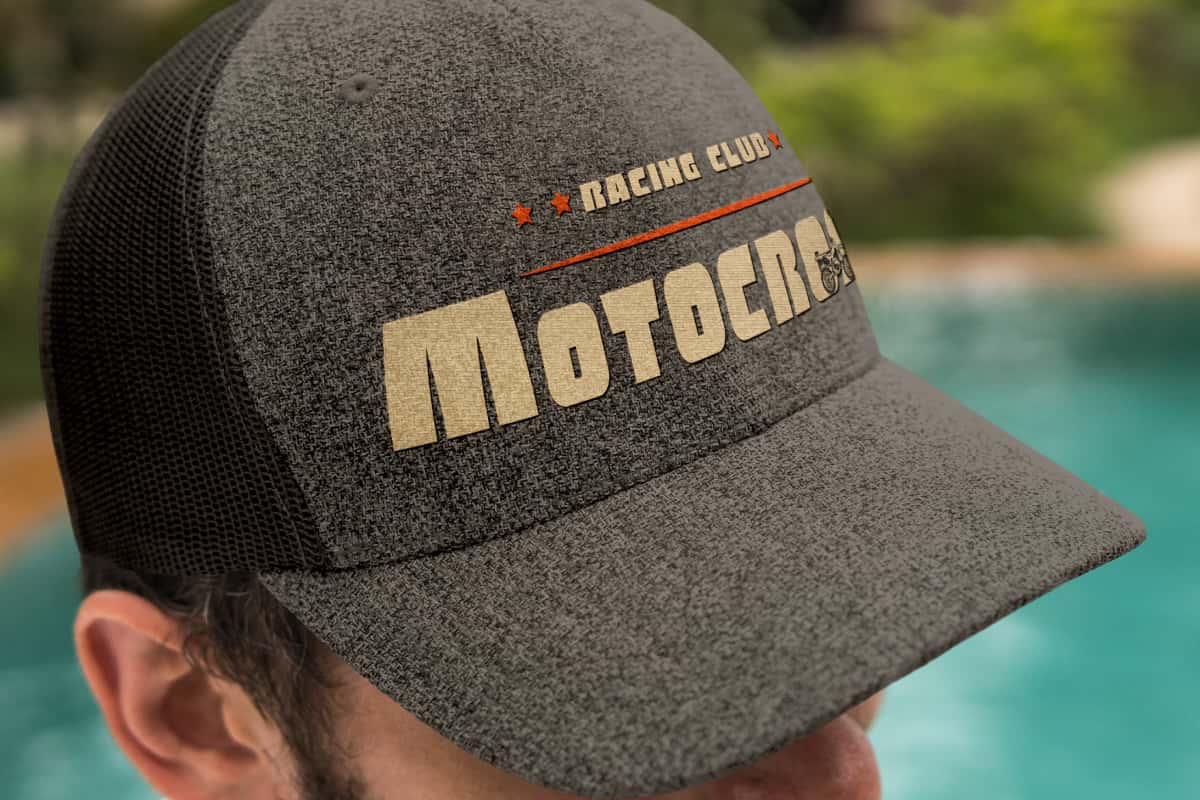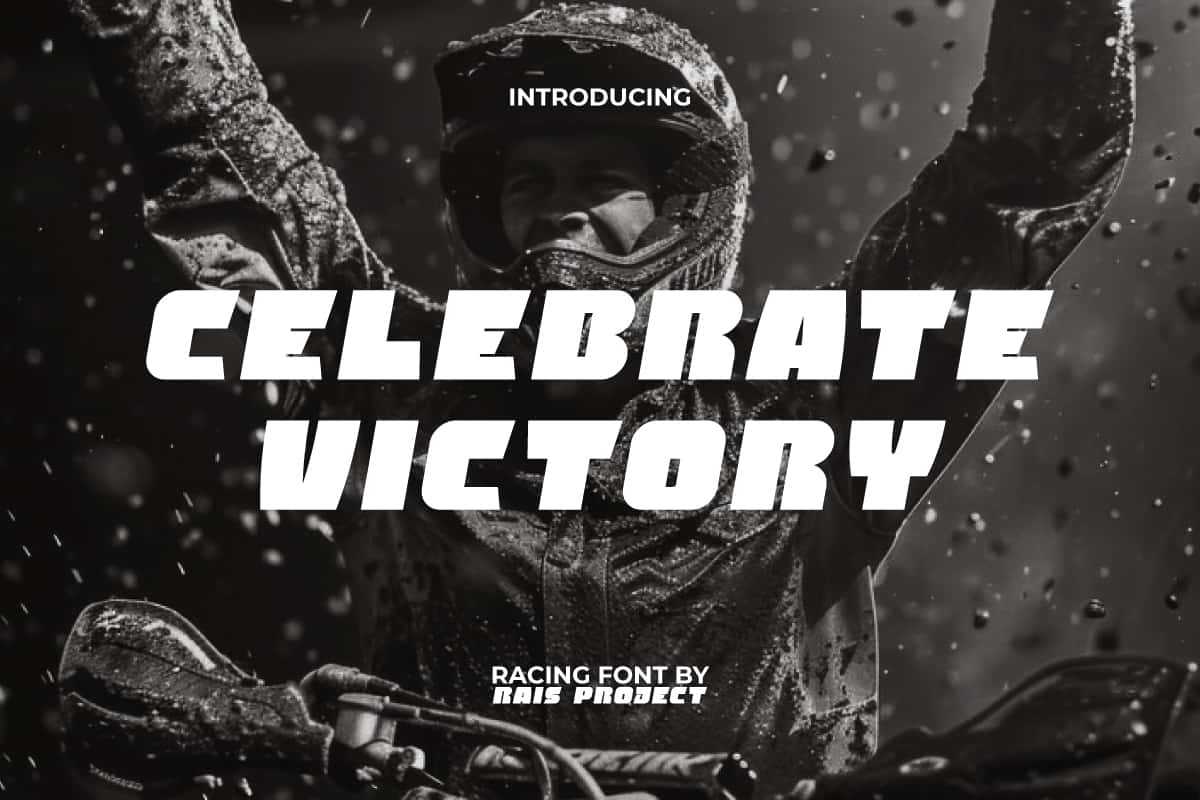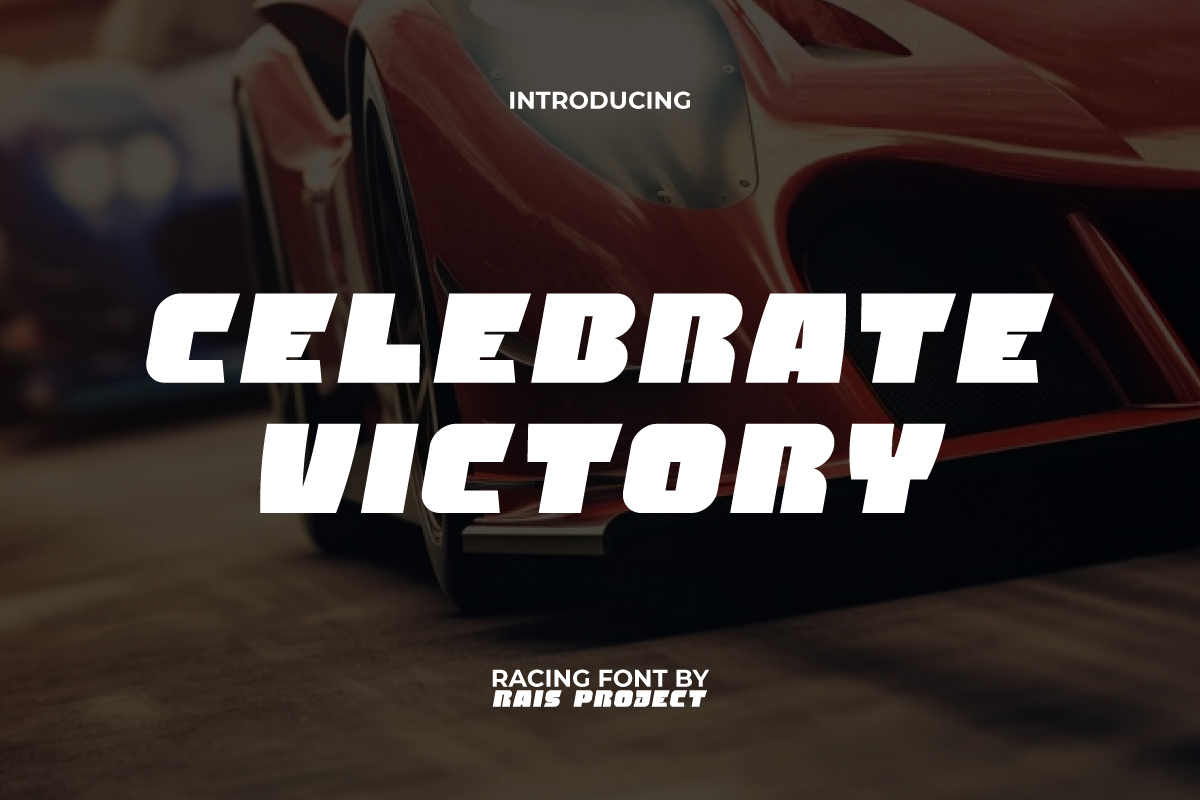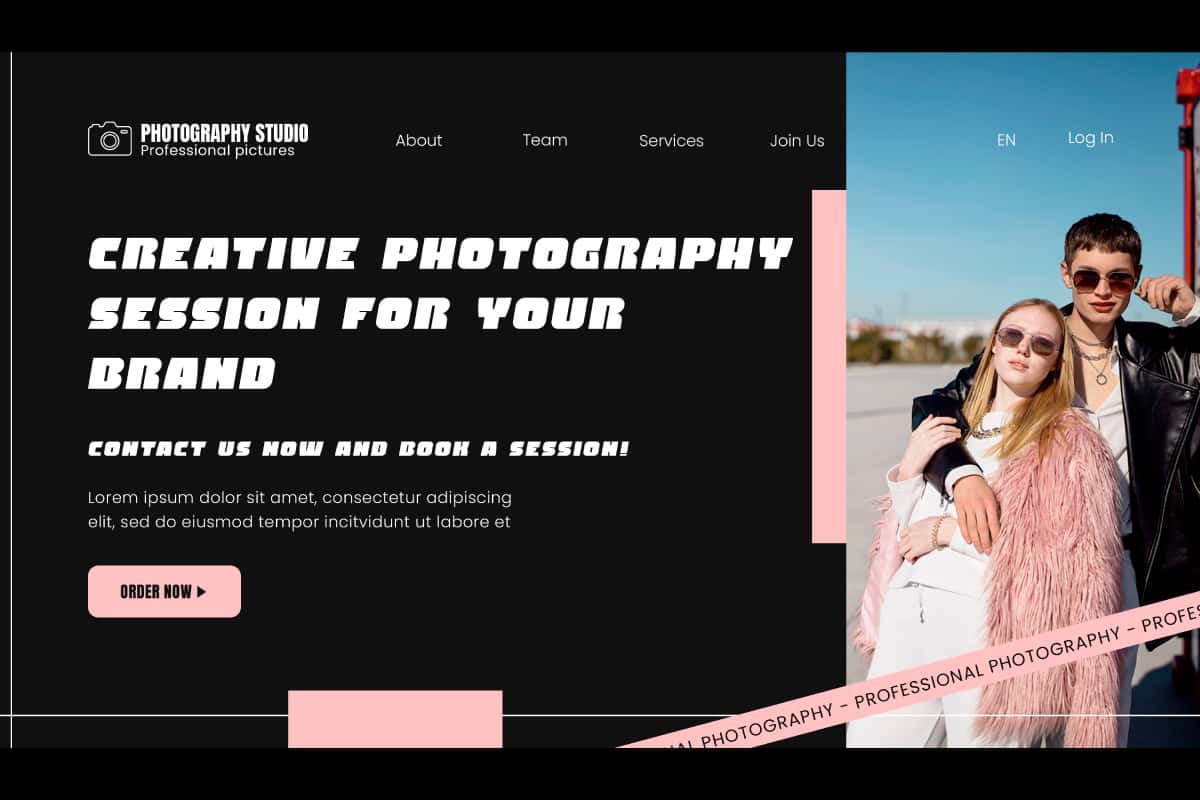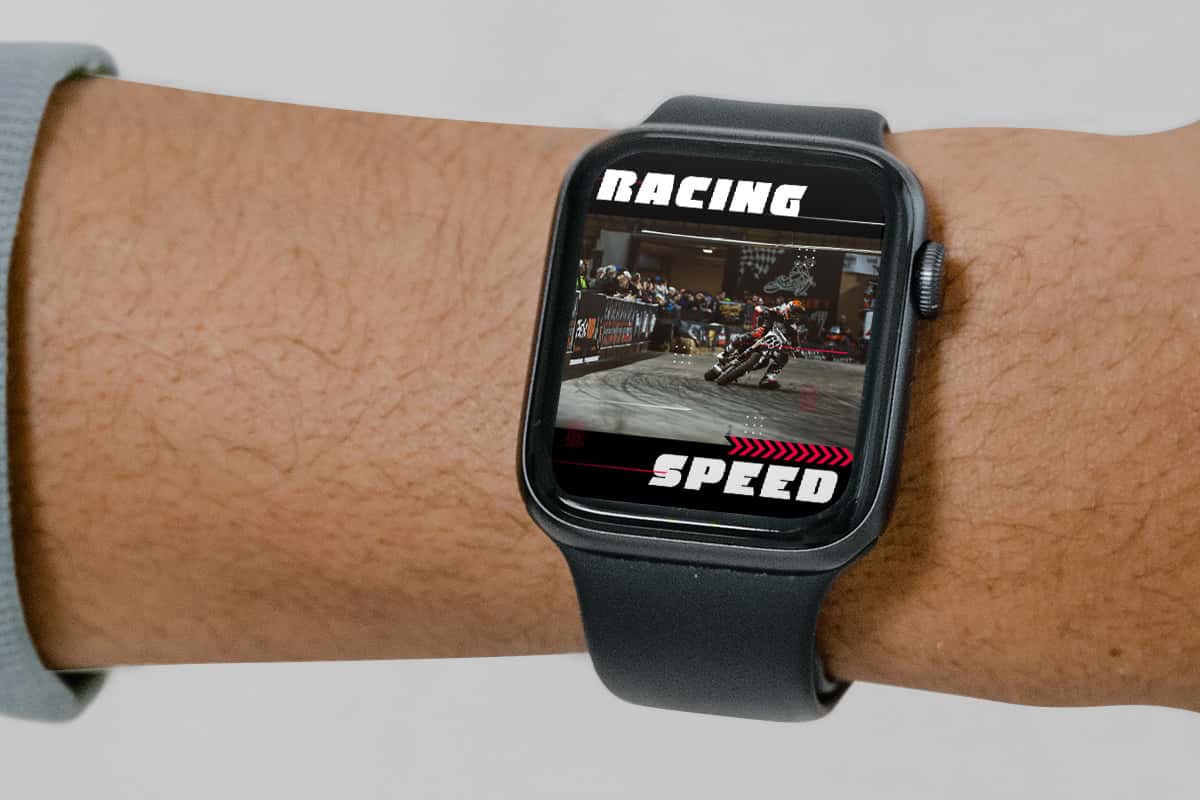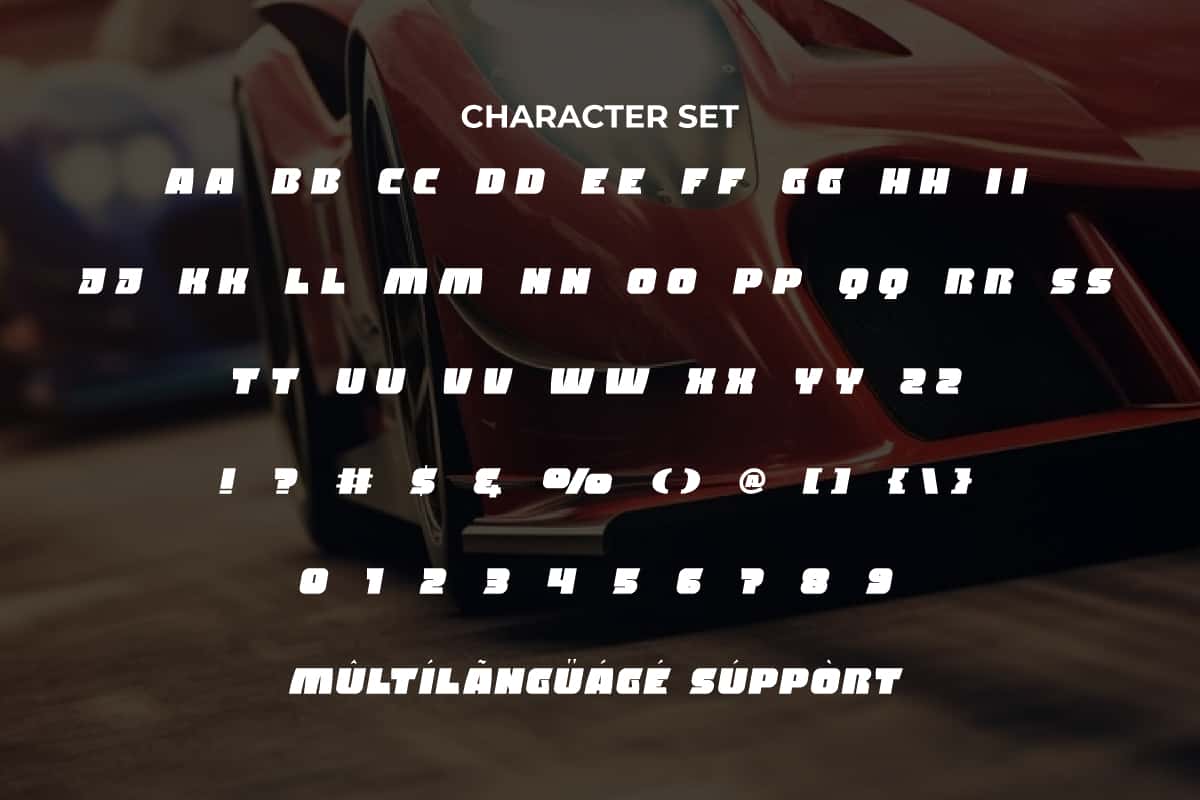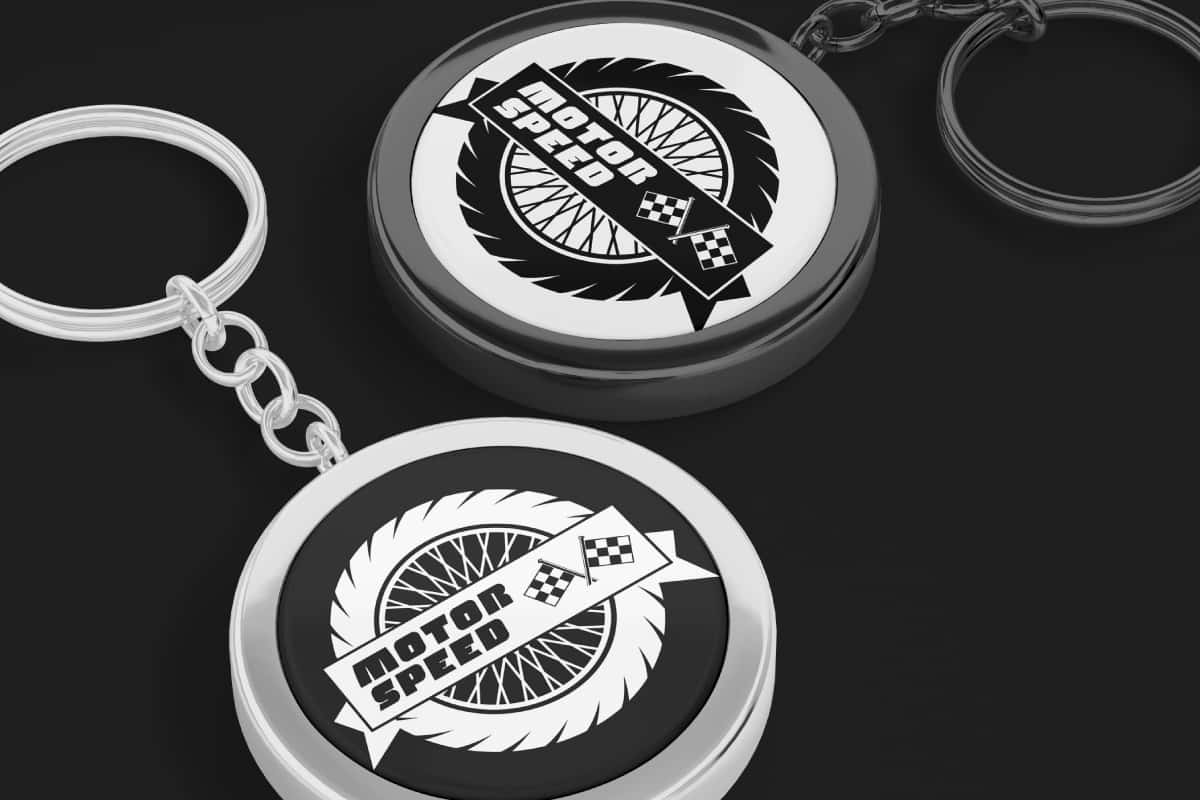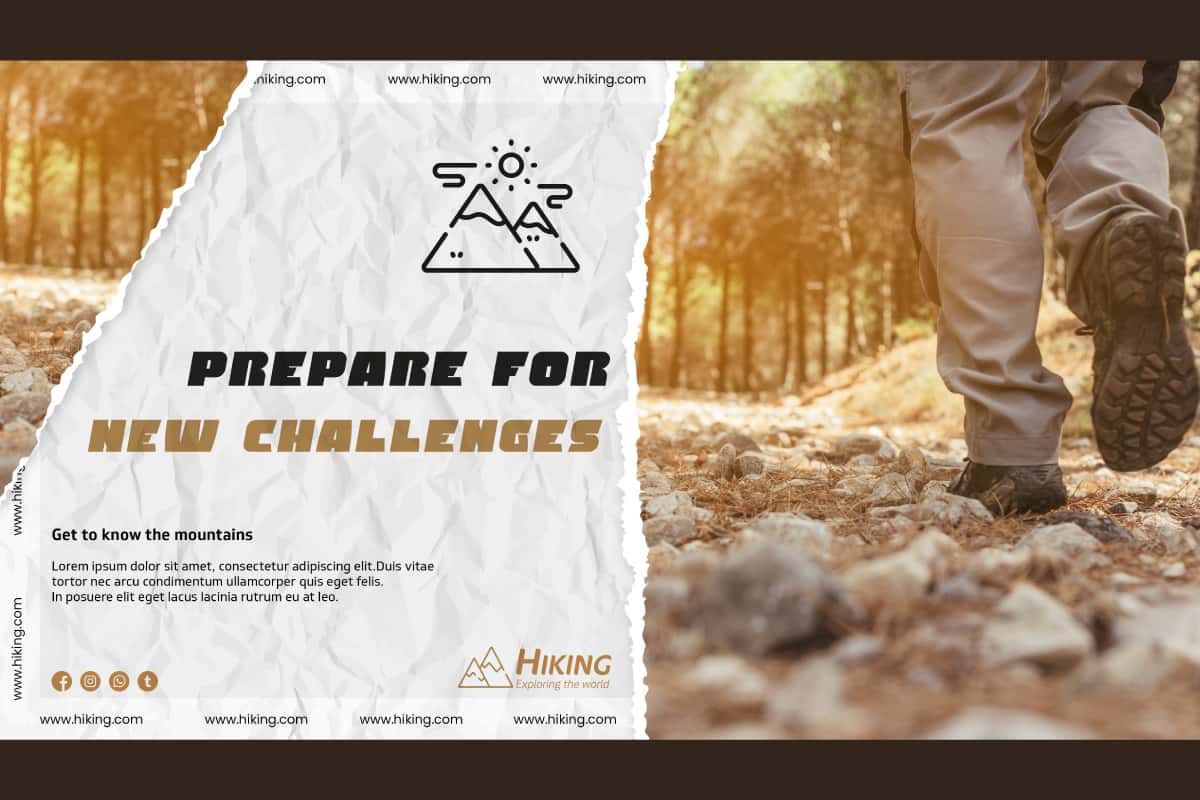
Celebrate Victory Font
Celebrate Victory Font is a racing font that has a unique shape to make your design different from the others!
Celebrate Victory Font is a bold and boxy racing font by RaisProject. This font has a casual style with a unique and slightly slanted touch to make it impressive. It will be great for custom design, poster, label, signage, stationery, product packaging, quotes, brand image, advertisement, invitation, marketing material, website page, and more!
Introducing Celebrate Victory Display Font – a bold and triumphant typeface designed to capture the spirit of achievement, energy, and success. With striking letterforms, dynamic strokes, and a modern display style, Celebrate Victory is perfect for projects that need to inspire excitement and confidence. From sports branding and event posters to gaming graphics, merchandise, and motivational campaigns, this font delivers a powerful presence that demands attention.
Celebrate Victory Display Font embodies strength and celebration in every curve. Its bold design makes it a standout choice for logos, headlines, advertising materials, and packaging that need to resonate with bold energy. Whether you’re designing for sports tournaments, championship events, lifestyle brands, or social media promotions, this font adds a victorious edge that leaves a lasting impression.
In today’s design-driven world, choosing the right typography is essential for building brand identity and emotional impact. Celebrate Victory Display Font offers the perfect combination of boldness, style, and readability, ensuring your designs are both modern and unforgettable. It’s a must-have typeface for industries that thrive on passion, energy, and success – from sports and gaming to lifestyle and entertainment.
Celebrate Victory Display Font includes a full set of ALL CAPS for Uppercase and Lowercase Letters, Numerals, and large range of Punctuation. This cool font will be suitable for various industries, such as sports, automotive, fashion, game, barber shop, cafe, event or festival, photography, printing, publishing, etc.